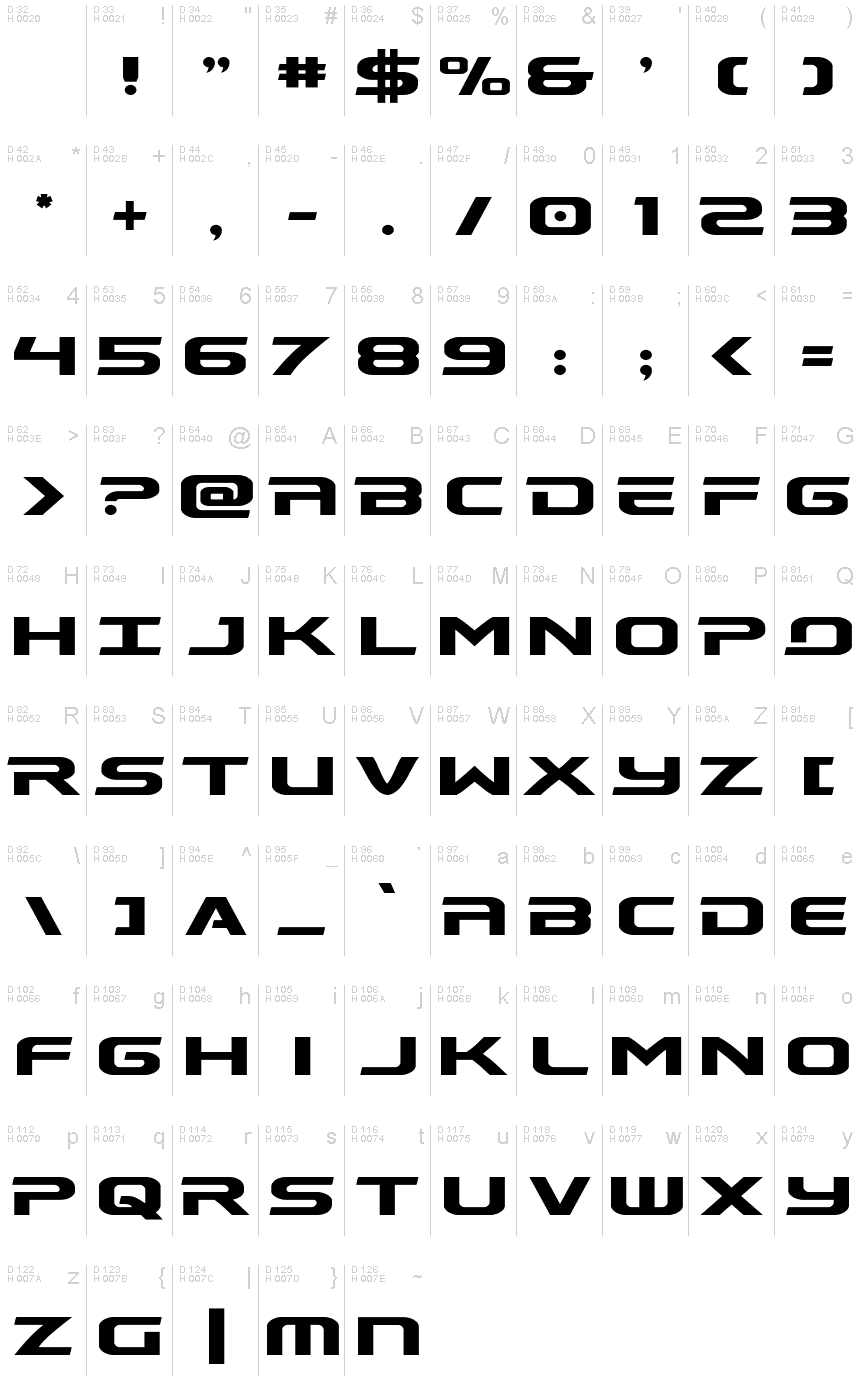
Drius Straight, from the renowned Drius font family by Iconian Fonts, is a captivating display typeface that exudes a futuristic essence. With its bold weight and allcaps design, this font is perfect for projects seeking to make a bold statement. Its extra-expanded width adds an element of uniqueness and visual impact.
Whether you're designing cutting-edge technology websites, creating striking sci-fi movie posters, or crafting attention-grabbing gaming logos, Drius Straight will elevate your designs to new levels of visual sophistication and modernity.
Drius Straight